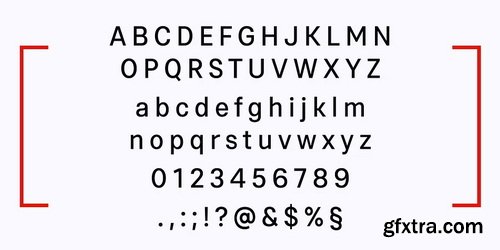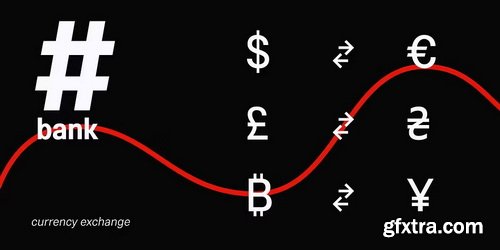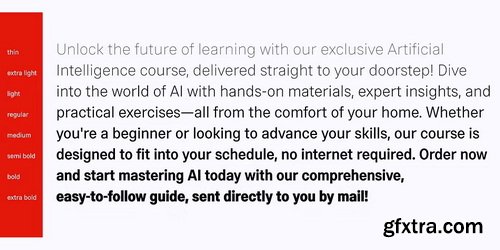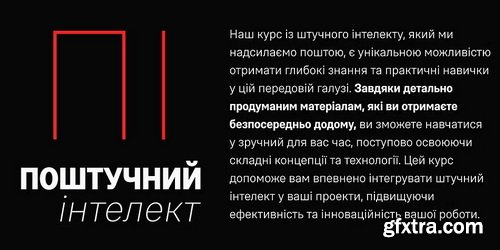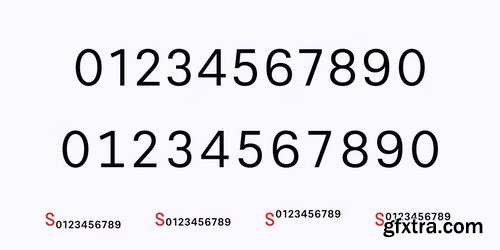
- Scuto Sans is a modern sans-serif typeface ideal for a wide range of applications, from branding and advertising to digital content and print media. Its well-proportioned letters and consistent stroke widths ensure readability at any size, making it ideal for user interfaces, corporate communications, and editorial layouts.
- The font includes a comprehensive set of characters, symbols, and diacritics, as well as suport for Cyrillic, making it suitable for multilingual projects. This makes it an excellent choice for global brands and companies that need to communicate with audiences in different languages.